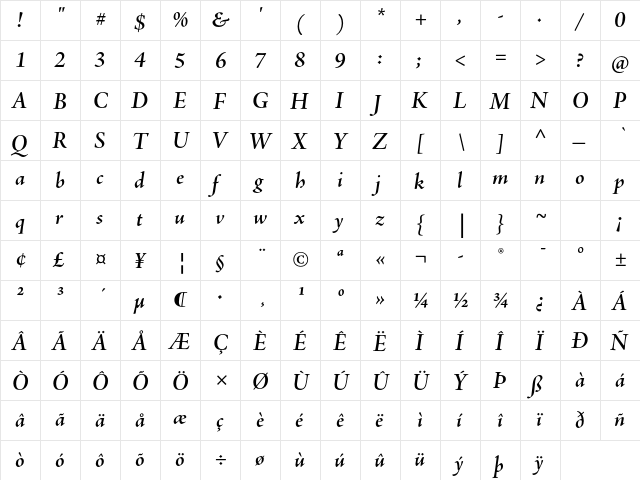
Adobe Jenson Pro Semibold Italic Subhead
| Designer | Robert Slimbach |
Design Context for Adobe Jenson Pro Typeface
Adobe Jenson Pro offers clean, dependable letterforms without strong stylistic allegiance, making it a practical choice for designers who need flexibility. The slanted form adds forward momentum and visual energy. The heavy weight commands attention and anchors typographic hierarchies.
Pro Tip: Use Adobe Jenson Pro for emphasis, pull quotes, and subheadings where its slanted energy can add rhythm to the layout.